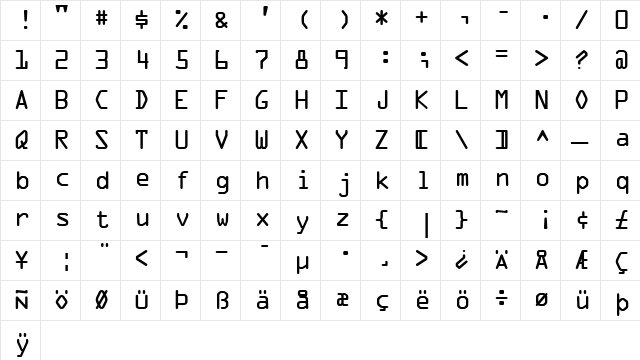
OCRAAlternate Roman
Design Context for OCRAAlternate Typeface
OCRAAlternate is a composed and adaptable typeface that performs quietly and consistently across a wide range of design contexts.